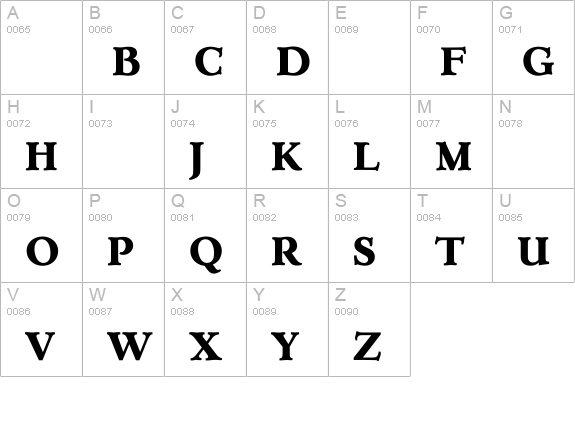
ErasmusExtraBold Font Details
ErasmusExtraBold is a bold and eye-catching font that exudes confidence and strength. Its thick strokes and sharp angles make it perfect for making a bold statement in your designs. Whether you're creating posters, logos, or headlines, ErasmusExtraBold will command attention and leave a lasting impression. What sets ErasmusExtraBold apart is not only its striking design but also the fact that it is freely available to download at FontsMarket.com. This means you can easily access this powerful font without any cost, making it a valuable addition to your design toolkit. Embrace the boldness of ErasmusExtraBold and elevate your projects with its impactful presence.